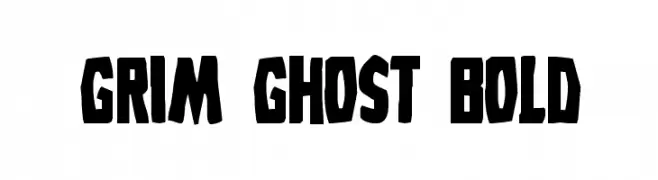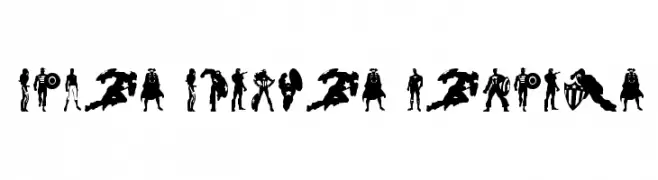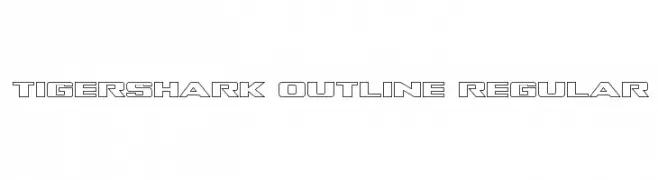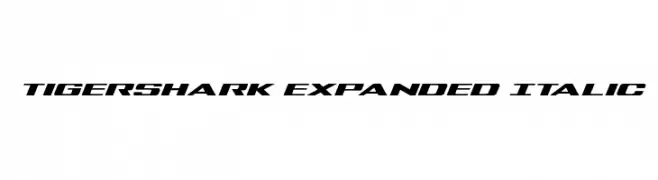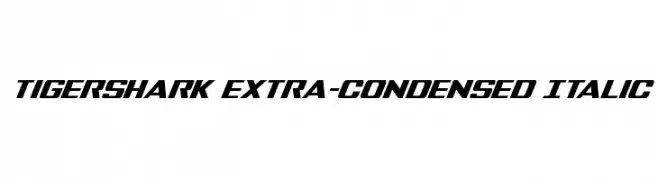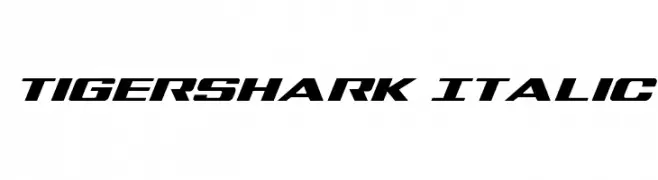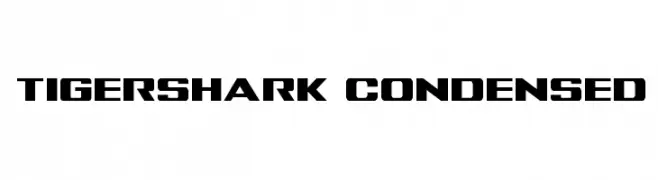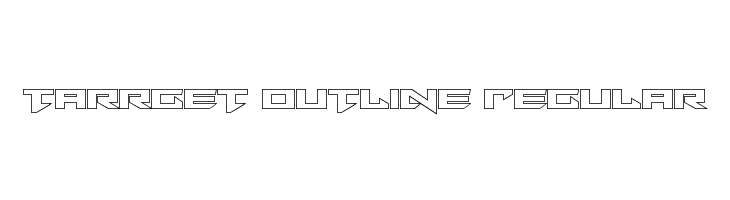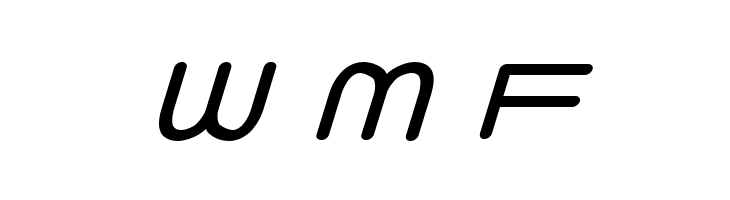
A bold, rugged font with a hand-drawn, ghostly appearance.
A bold, hand-drawn font with an edgy and dynamic style.
Silhouette-based decorative font with superhero themes.
A bold, geometric outline font with a modern and futuristic style.
A bold, expanded italic font with a sleek, modern design.
A bold, italicized outline font with a dynamic and modern style.
A bold, extra-condensed italic font with a dynamic and modern style.
A bold, italicized font with a dynamic and angular design.
A bold, condensed font with a geometric and modern style.
A modern, italic font with a striped gradient effect, exuding energy and motion.